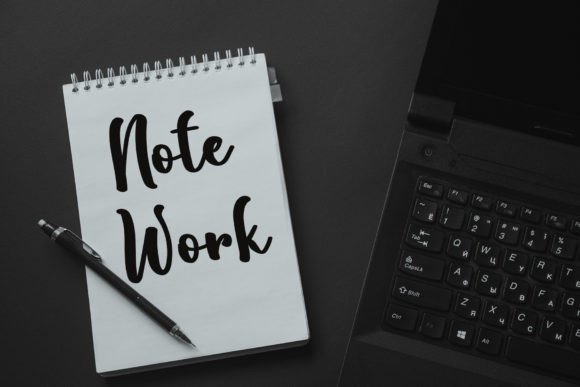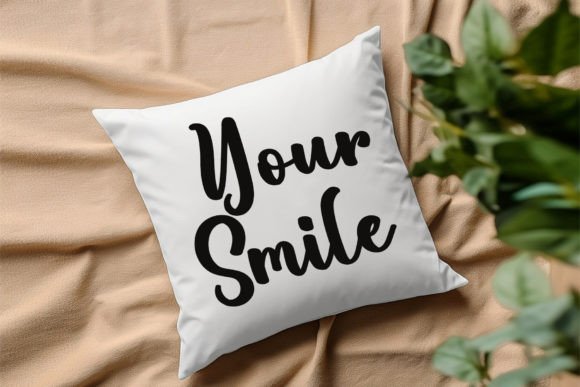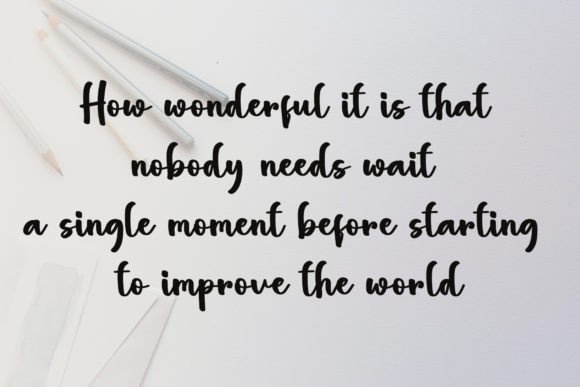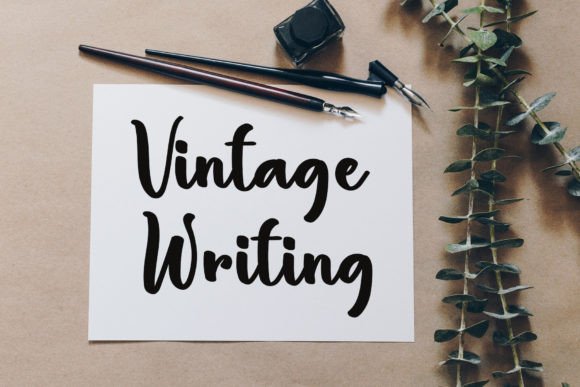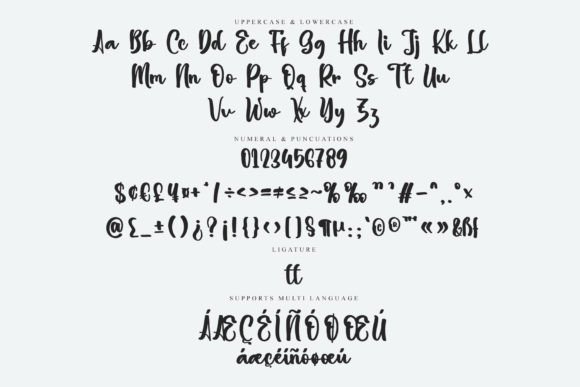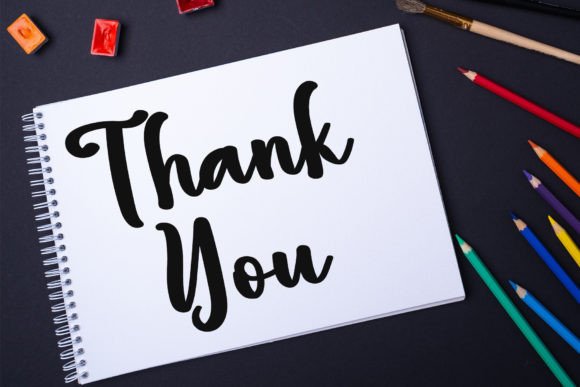
Introducing Chilly Font: The Sweet and Elegant Handwritten Font for Your Design Needs
Are you looking for a font that can add a touch of sweetness and romance to your designs? Look no further than Chilly Font, a beautiful cursive handwritten font that is perfect for a variety of design projects. In this article, we’ll take a closer look at Chilly Font, its features, and how you can use it to elevate your designs.
What is Chilly Font?
Chilly Font is a sweet and cursive handwritten font that is designed to add a touch of elegance and sophistication to your designs. Its gentle and flowing lines make it perfect for a wide range of design projects, from branding and logos to wedding invitations and greeting cards.
Key Features of Chilly Font
So, what makes Chilly Font so special? Here are some of its key features:
- Sweet and Cursive: Chilly Font is a cursive handwritten font that is sweet and elegant, making it perfect for designs that require a touch of sophistication.
- Versatile: This font is versatile and can be used for a wide range of design projects, from branding and logos to wedding invitations and greeting cards.
- Easy to Read: Chilly Font is easy to read, making it perfect for designs that require a clear and concise message.
- Highly Customizable: This font is highly customizable, allowing you to adjust the size, color, and style to fit your design needs.
Use Cases for Chilly Font
So, how can you use Chilly Font in your designs? Here are some use cases to get you started:
- Branding and Logos: Chilly Font is perfect for branding and logos that require a touch of elegance and sophistication.
- Wedding Invitations and Things: This font is perfect for wedding invitations, wedding cards, and other wedding-related designs.
- Greeting Cards: Chilly Font is perfect for greeting cards, including birthday cards, anniversary cards, and more.
- Fashion and Lookbook: This font is perfect for fashion designs, including lookbooks, catalogs, and more.
- Marketing Promotion: Chilly Font is perfect for marketing promotions, including flyers, brochures, and more.
Why Choose Chilly Font?
So, why choose Chilly Font over other fonts? Here are some reasons why:
- Unique and Elegant: Chilly Font is a unique and elegant font that will set your designs apart from the rest.
- High-Quality: Chilly Font is a high-quality font that is designed to produce crisp and clear results.
Tips for Using Chilly Font
Here are some tips for using Chilly Font in your designs:
- Use it with a Clear Background: Chilly Font looks best with a clear background, so make sure to choose a background that complements the font.
- Adjust the Size and Color: Adjust the size and color of the font to fit your design needs.
- Use it with Other Fonts: Chilly Font can be used with other fonts to create a unique and interesting design.
In conclusion, Chilly Font is a beautiful and elegant handwritten font that is perfect for a wide range of design projects. Its sweet and cursive lines make it perfect for designs that require a touch of sophistication and elegance. With its versatility, ease of use, and high-quality design, Chilly Font is a great choice for designers and crafters looking to elevate their designs.